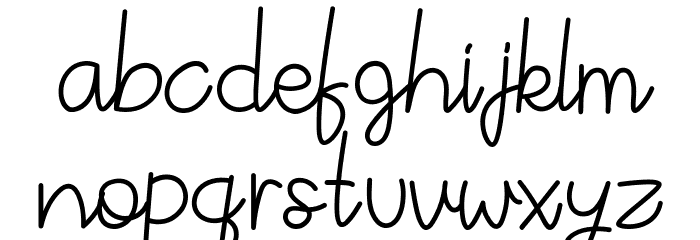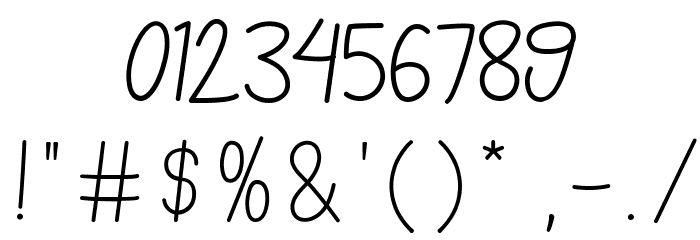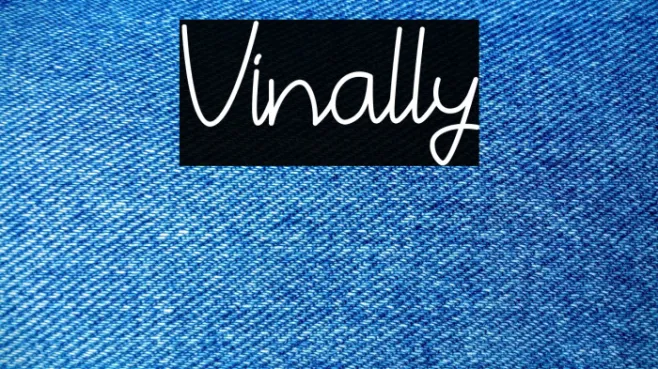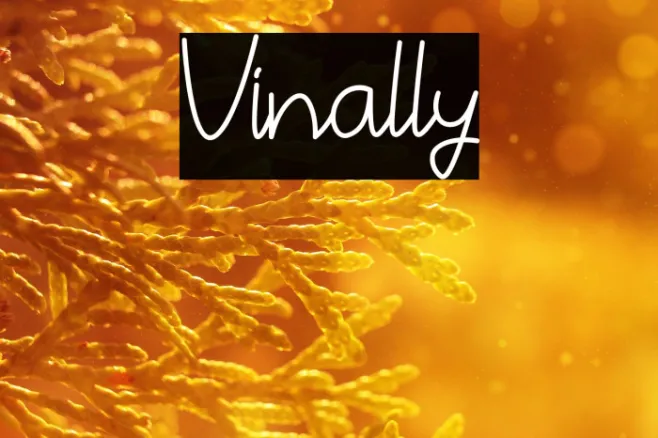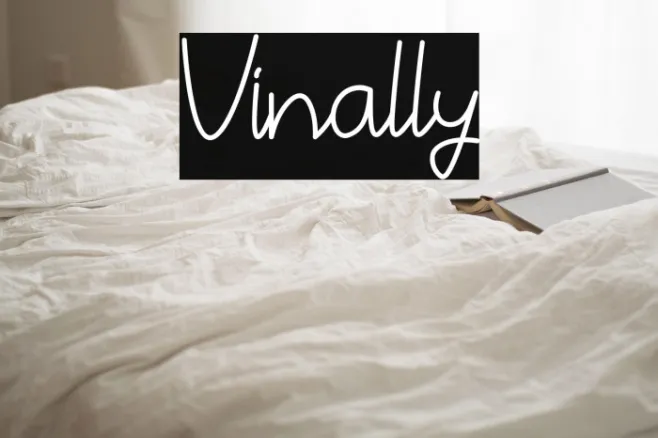
Vinally Font
This font features a playful and casual handwritten style, characterized by its smooth, flowing lines and slightly irregular shapes. The uppercase letters are tall and narrow, with a consistent stroke width that gives them a clean and modern appearance. The lowercase letters maintain a similar style, with some characters having distinctive loops and curves that add to the font's charm. Numbers and special characters are designed to match the overall aesthetic, ensuring a cohesive look across all text. The font's informal and friendly vibe makes it suitable for a variety of creative projects.
A playful handwritten font with smooth, flowing lines and a casual style.
- Proposed Projects: Ideal for greeting cards, invitations, personal branding, and social media graphics.
- Overall Style: Casual
- Use Case: Headlines, Logos, Informal text